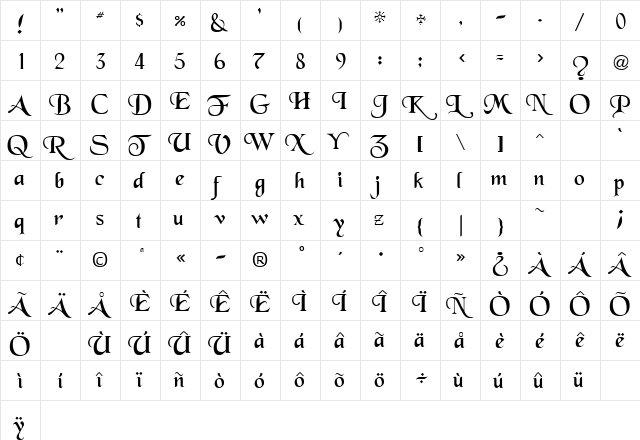
Black Regular
Design Context for Black Typeface
Black is a composed and adaptable typeface that performs quietly and consistently across a wide range of design contexts.